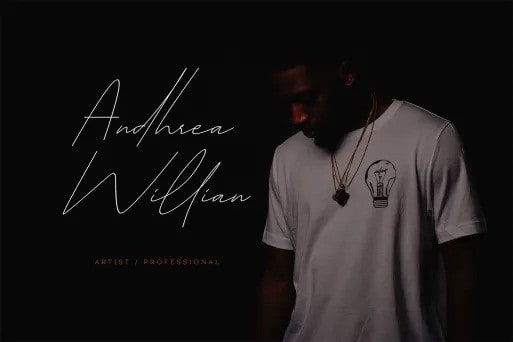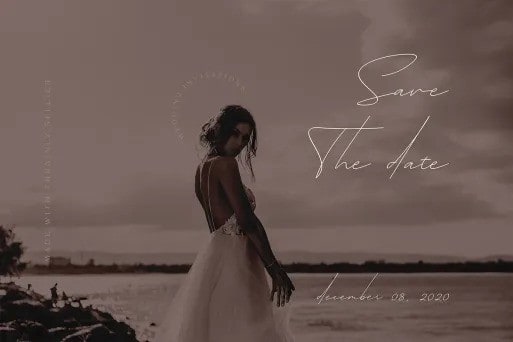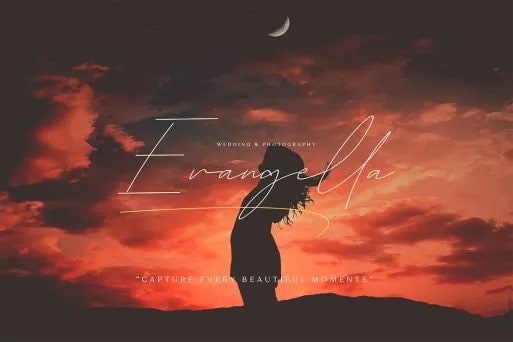
Introducing, Thrainly Sellier Handwritten Font is a casual handwritten font. It features a relaxed and elegant feel. It’s designed and shared by Namara Creative Studio. It’s a classy Handwritten script font with authentic styles. Includes uppercase and lowercase letters, numerals, punctuation, alternates, ligatures, swash and multilingual support. This versatility will apply to a wide range of applications from stationery, to social media posts – the only limit is your imagination!